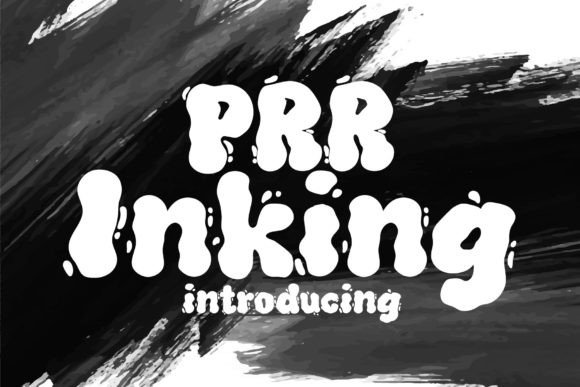
Dive into the world of Prr Inking Font, a display font family that captivates with its playful and distinctive design. Handcrafted by the renowned Fox7, this font bursts with energy and character, promising to transform your creative projects into captivating masterpieces.
Unleash your imagination and explore the endless possibilities that await with Prr Inking Font. Its versatility knows no bounds, allowing you to effortlessly elevate t-shirts, sportswear, logos, advertisements, clothing, and more. From playful patterns to bold statements, this font is your ultimate tool for expressing your unique style.
With its unique and distinct features, Prr Inking Font stands out from the crowd, leaving an unforgettable impression on all who encounter it. Say goodbye to ordinary designs and embrace the extraordinary with this font that adds a touch of personality and charm to every creation.
Step into a realm of creativity where your designs come to life, brimming with energy and charm. Prr Inking Font is the perfect choice for those who seek to make a lasting impact, leaving a trail of admiration wherever their creations go.
Don't settle for ordinary. Embrace the extraordinary with Prr Inking Font. Let your imagination soar, let your creativity flow, and let this remarkable font guide you towards designs that captivate and inspire.